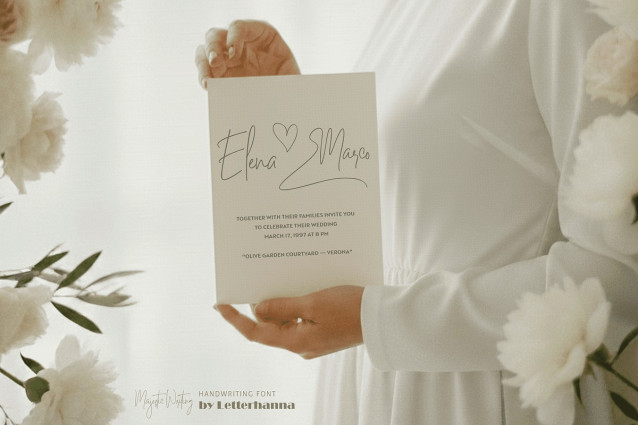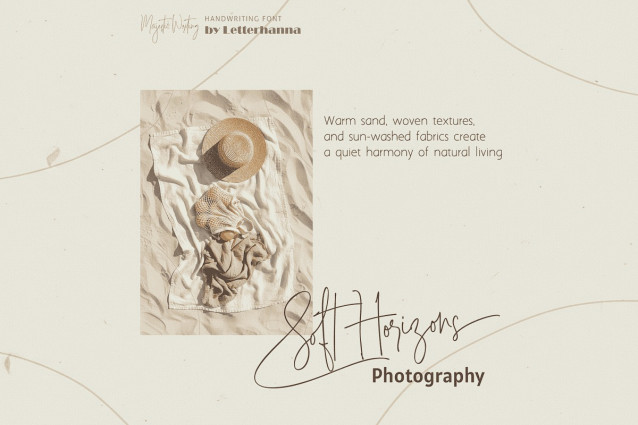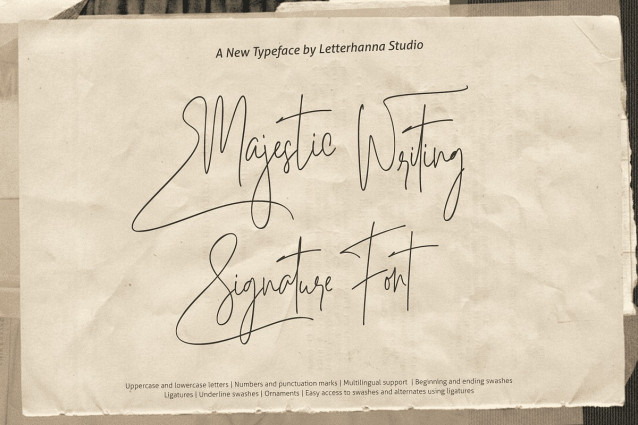
Majestic Writing Handwritten Font
Majestic Writing Handwritten Font is a script typeface built around the idea of passing impressions — not perfect clarity, but remembered feeling. Certain characters intentionally blur readability; the form speaks first, the mind understands later. In visual identity, emotion often communicates faster than precision, and the eye naturally reconstructs the letterforms.
The typeface contains a complete uppercase and lowercase alphabet, numbers, punctuation, multilingual support, and fifty ligatures. It works especially well for signature-style branding, photography watermarks, wedding stationery, and logo marks based on initials.
Designed with character and individuality in mind. Majestic Writing also provides hand-drawn capitals and lowercase letters with natural stroke variation, extended punctuation, and expressive ligatures. Includes entry and exit swashes to recreate authentic handwritten movement.